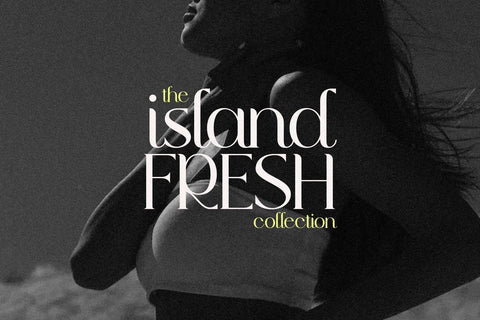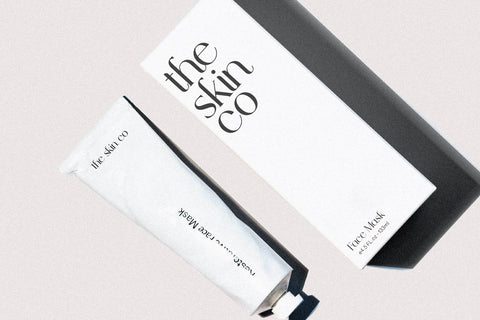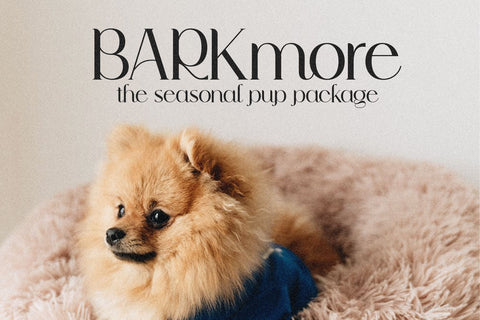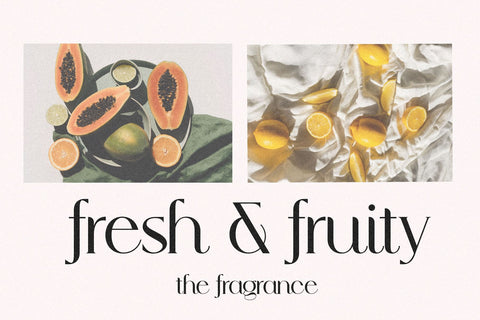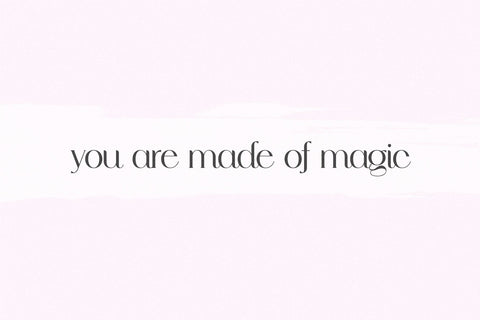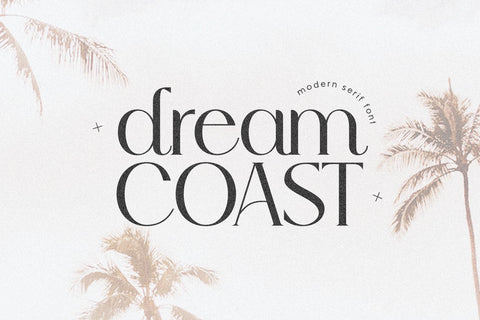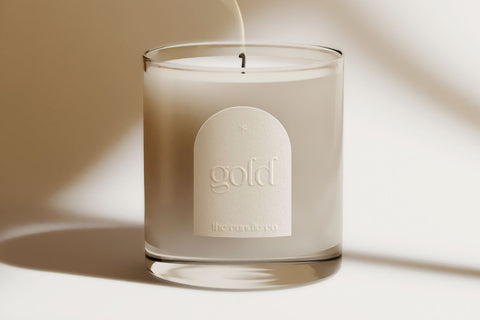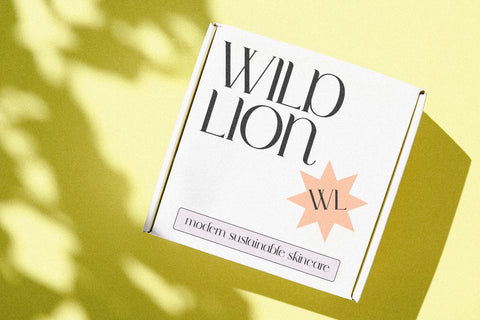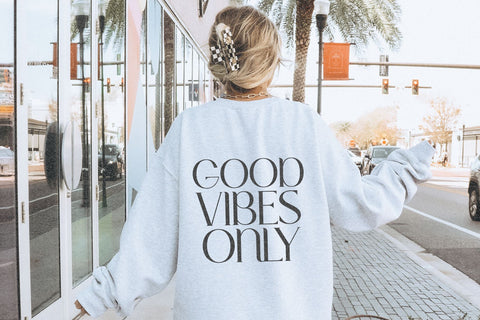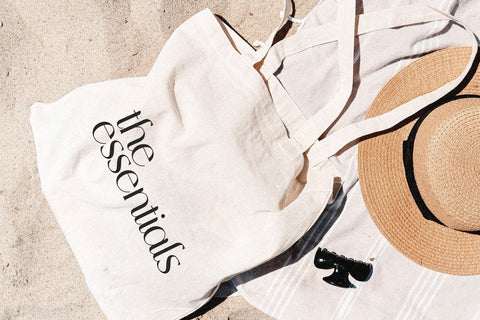
Dream Coast - Modern Serif Font
Dream Coast is a classy serif font - created especially for eye catching logos and packaging!
This font is perfect for logos, branding, advertisements, product packaging, cosmetics, posters, quotes and more!